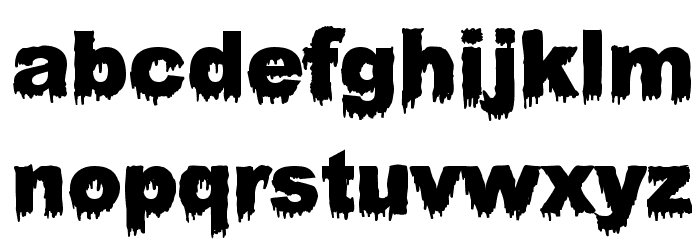
Bloody Stump Font
This font exudes a chilling and eerie vibe, perfect for Halloween or horror-themed projects. The letters appear as if they are dripping or melting, creating a sense of unease and suspense. The bold, jagged edges and irregular shapes contribute to its unsettling appearance, making it ideal for capturing attention and evoking a sense of fear or mystery. The uppercase and lowercase letters maintain a consistent style, with numbers and special characters following suit. This font is designed to stand out and make a bold statement, suitable for any project that requires a touch of the macabre.
A bold, dripping font perfect for horror themes.
- Proposed Projects: Ideal for Halloween posters, horror movie titles, haunted house flyers, and spooky event invitations.
- Overall Style: Decorative